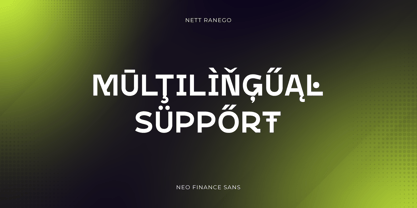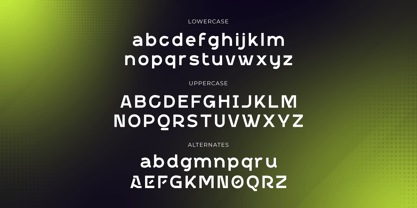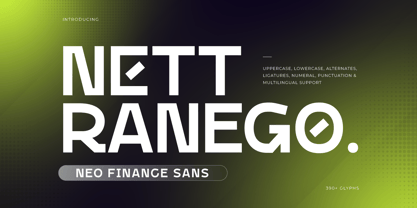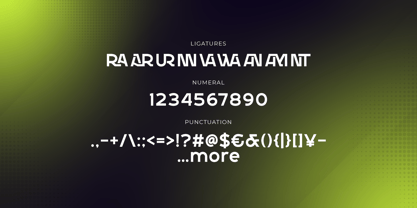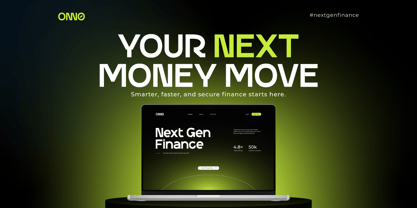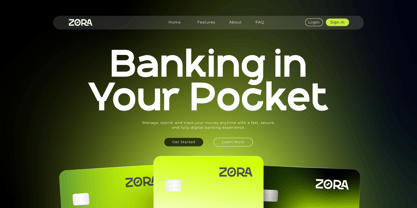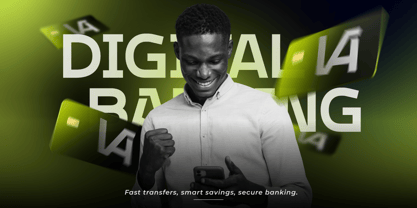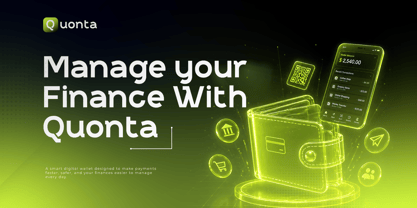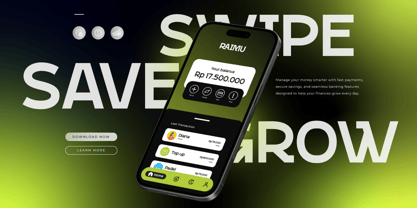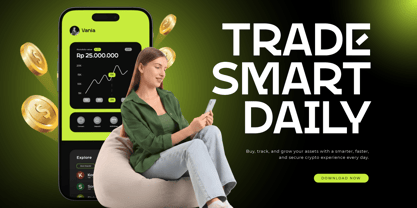
Engineered for the Fintech industry, Nett Ranego features bold, modern letterforms designed to strengthen brand identity within the Digital Banking sector. Its clean visual character ensures high-level readability, making it the ideal solution for a Seamless Transaction UI, from crystal-clear balance displays to complex financial dashboard navigation.
This font drives design efficiency across crypto platforms, banking apps, and tech startups. With over 390 glyphs, including unique ligatures and futuristic alternates, Nett Ranego offers full flexibility for logos, web headlines, and digital product interfaces. Integrated multilingual support ensures your brand is ready to compete in the global financial market.
- All glyphs and Feature
- Multilingual Support: Fully supports 85+ languages, including:
Afrikaans, Albanian, Asu, Basque, Bemba, Bena, Breton, Catalan, Chiga, Cornish, Croatian, Czech, Danish, Dutch, Embu, English, Esperanto, Estonian, Filipino, Finnish, French, Friulian, Galician, Gusii, Hungarian, Indonesian, Irish, Italian, Kabuverdianu, Kalenjin, Kamba, Kikuyu, Kinyarwanda, Latvian, Lithuanian, Lower Sorbian, Luo, Luxembourgish, Luyia, Machame, Makhuwa-Meetto, Makonde, Malagasy, Maltese, Manx, Meru, Morisyen, North Ndebele, Norwegian Bokmål, Norwegian Nynorsk, Nyankole, Oromo, Polish, Portuguese, Quechua, Romanian, Romansh, Rombo, Rundi, Rwa, Samburu, Sango, Sangu, Scottish Gaelic, Sena, Serbian, Shambala, Shona, Slovak, Slovenian, Soga, Somali, Spanish, Swahili, Swedish, Swiss German, Taita, Teso, Turkish, Upper Sorbian, Uzbek (Latin), Volapük, Vunjo, Walser, Zulu.